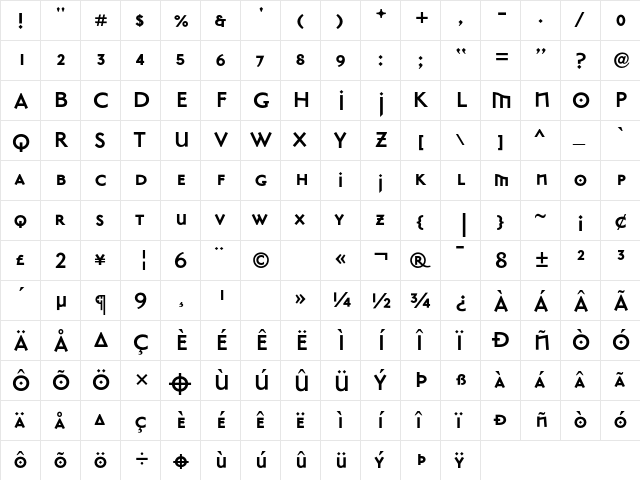
MasonSansAlternate Bold Font Preview
MasonSansAlternate Bold
MasonSansAlternate Bold Font Details
Design Context for MasonSansAlternate Typeface
MasonSansAlternate takes a measured approach to typography — its balanced proportions and neutral character make it a reliable workhorse for both digital and print work. The heavy weight commands attention and anchors typographic hierarchies.